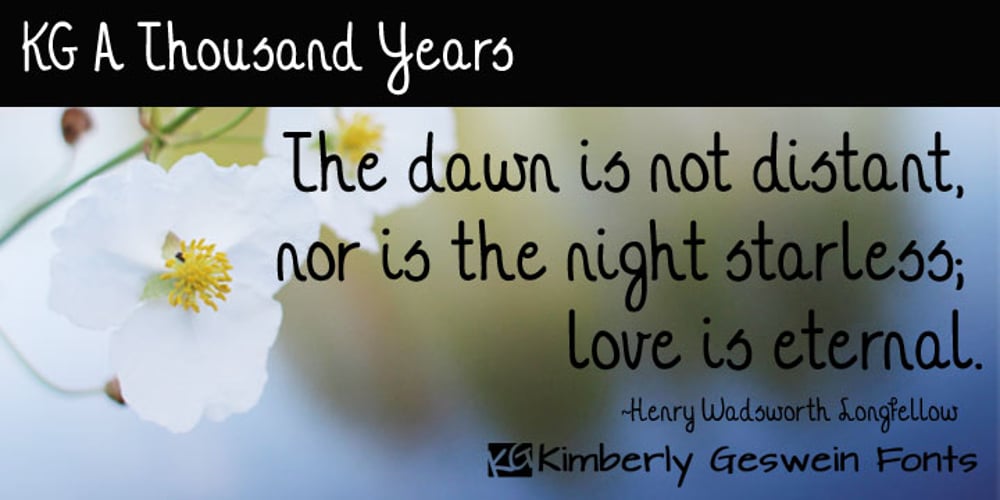
KG A Thousand Years
KG A Thousand Years font
KG A Thousand Years Font Family was designed by Kimberly Geswein and published by Kimberly Geswein. KG A Thousand Years contains 1 styles and family package options. This handwriting is soft and feminine with gentle curves.